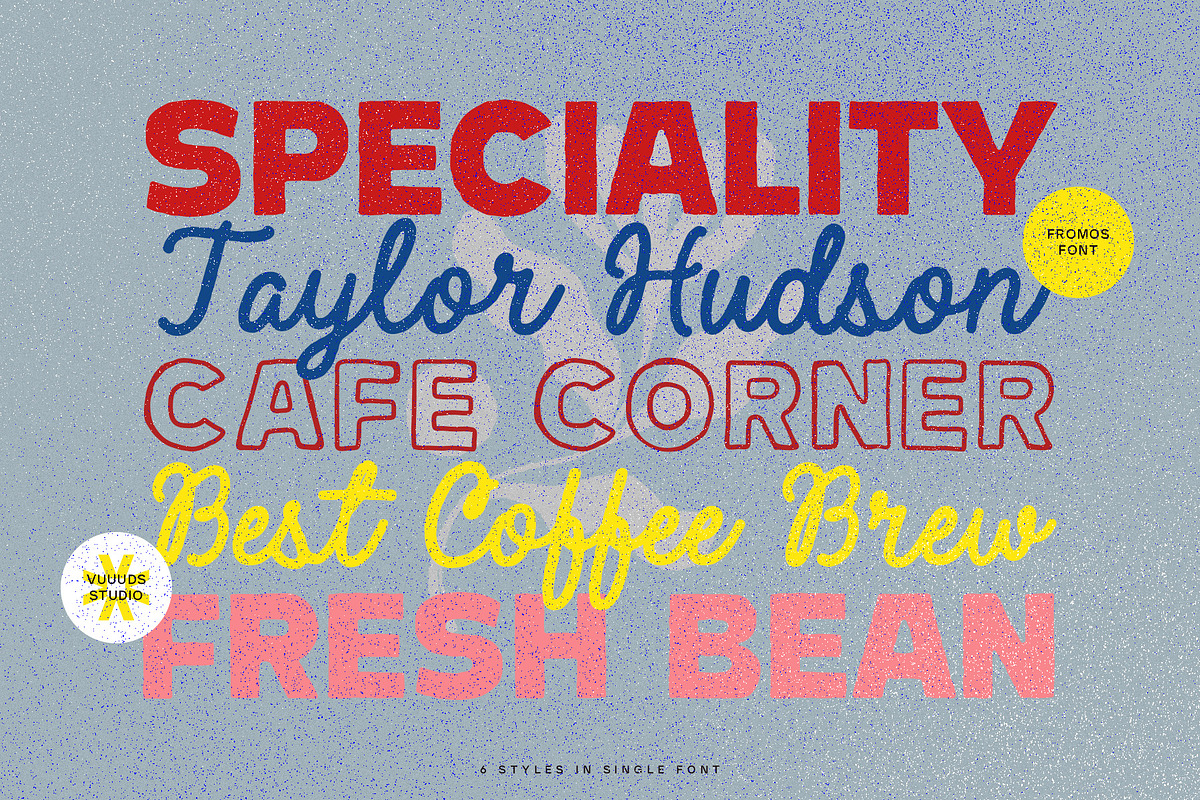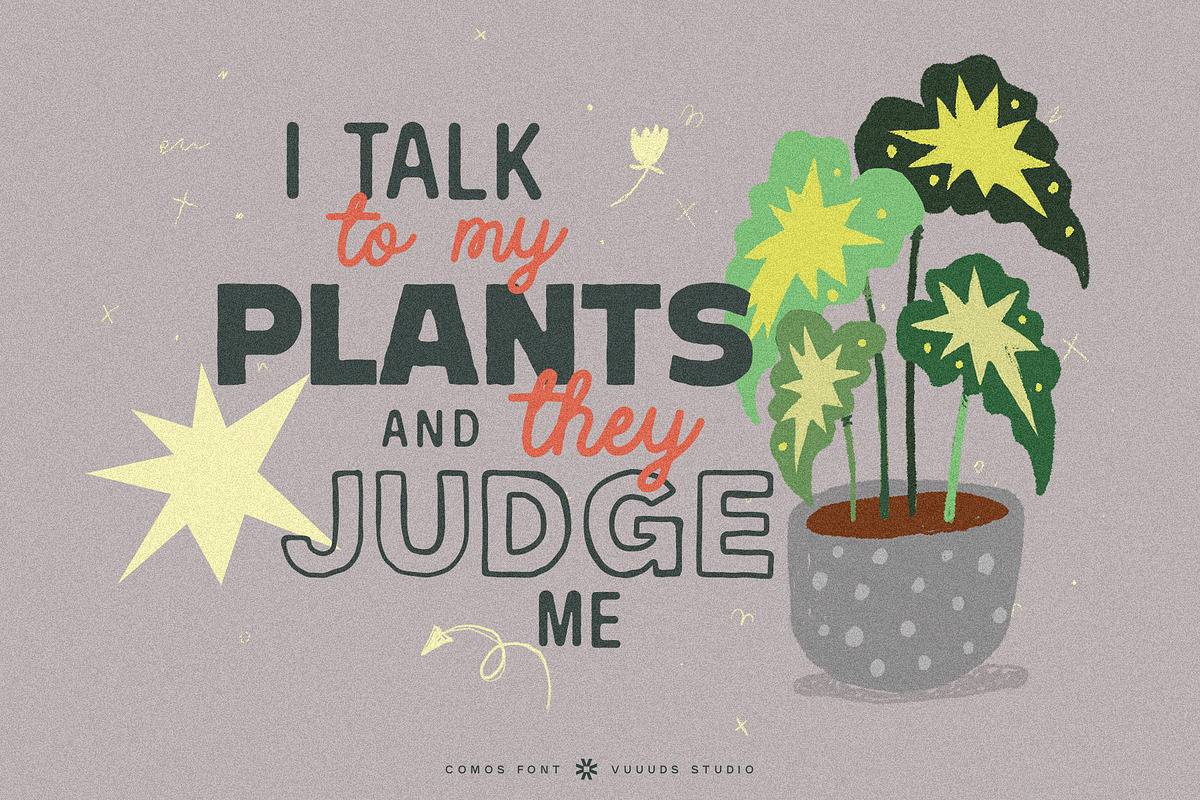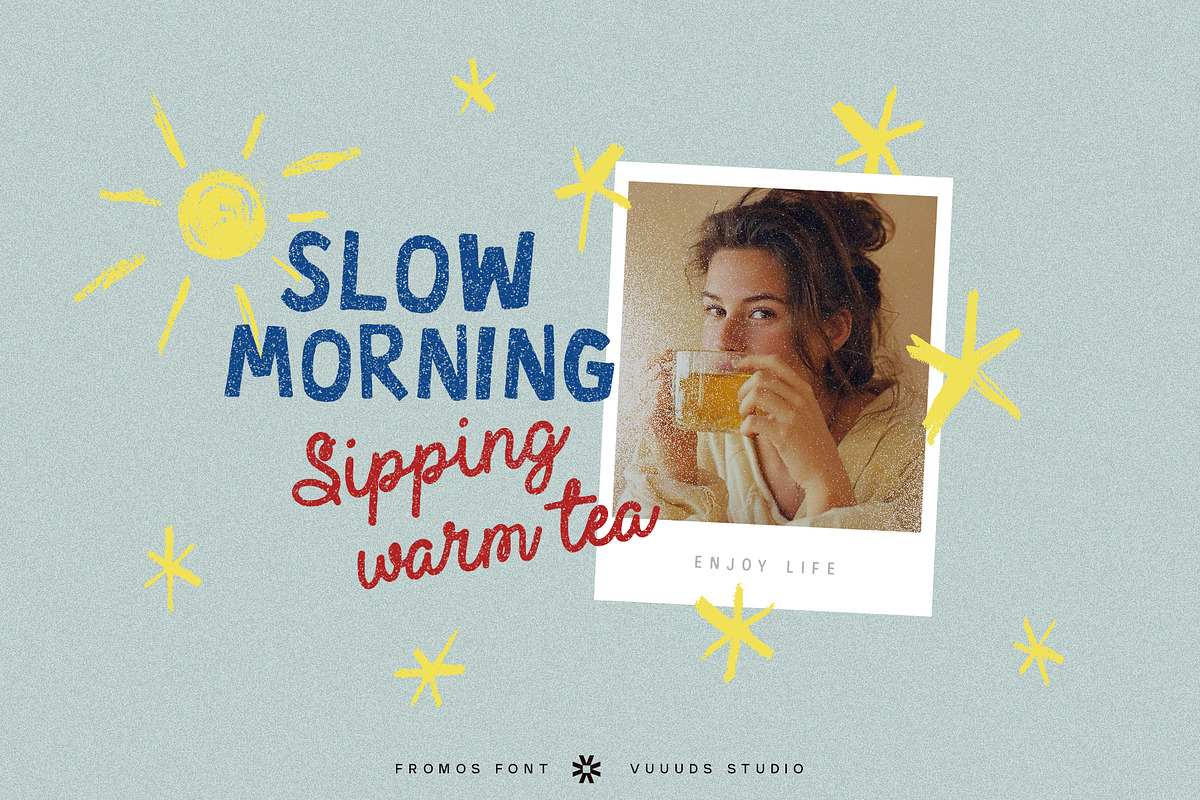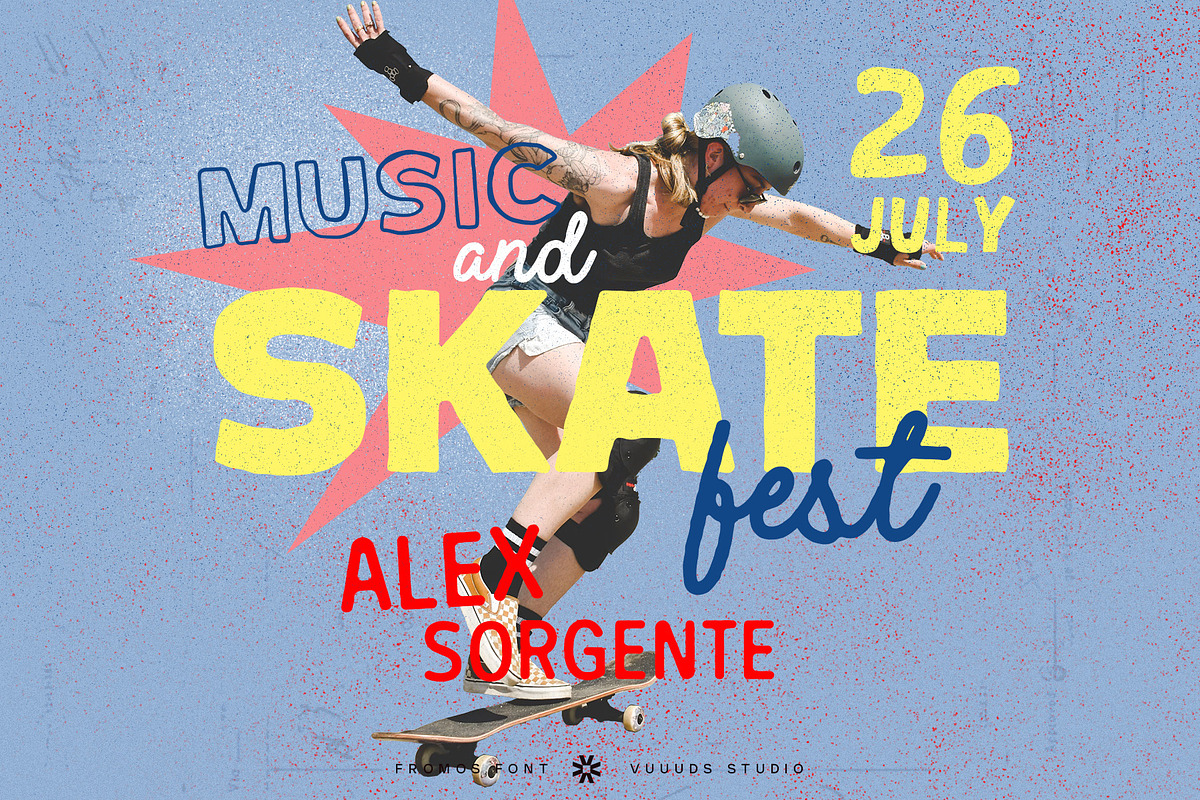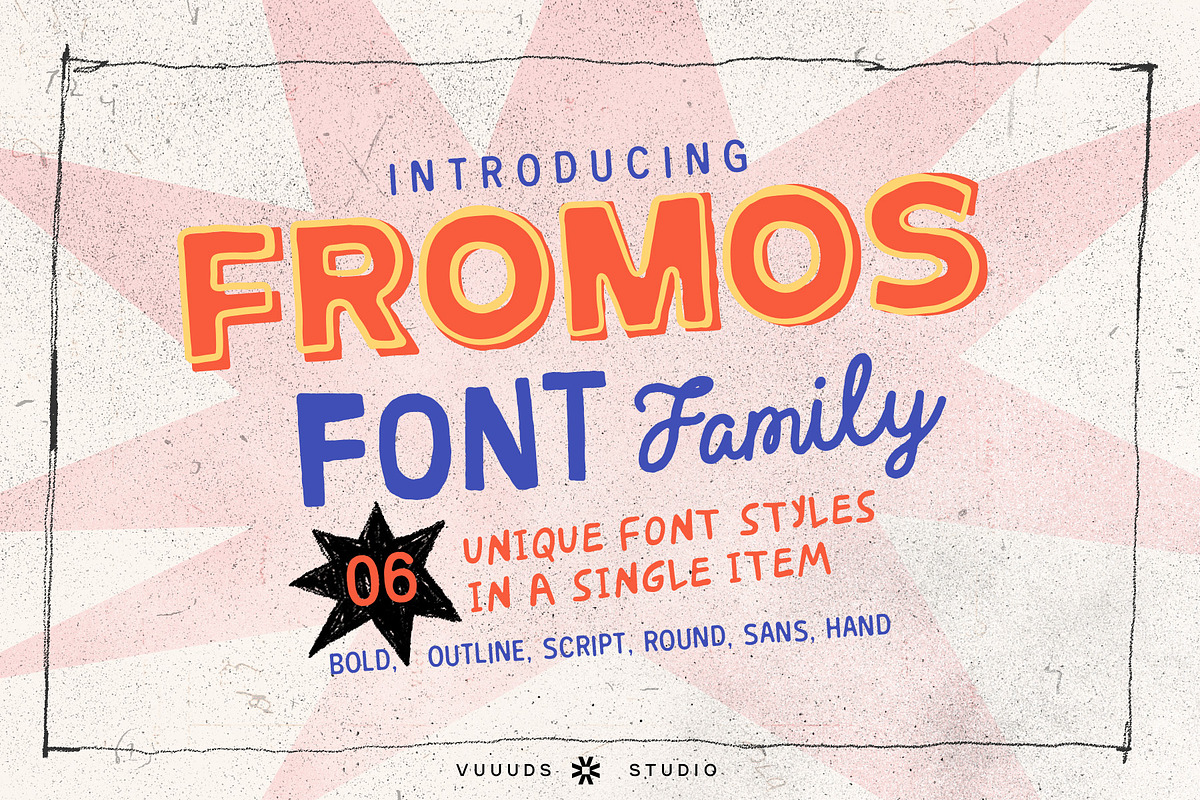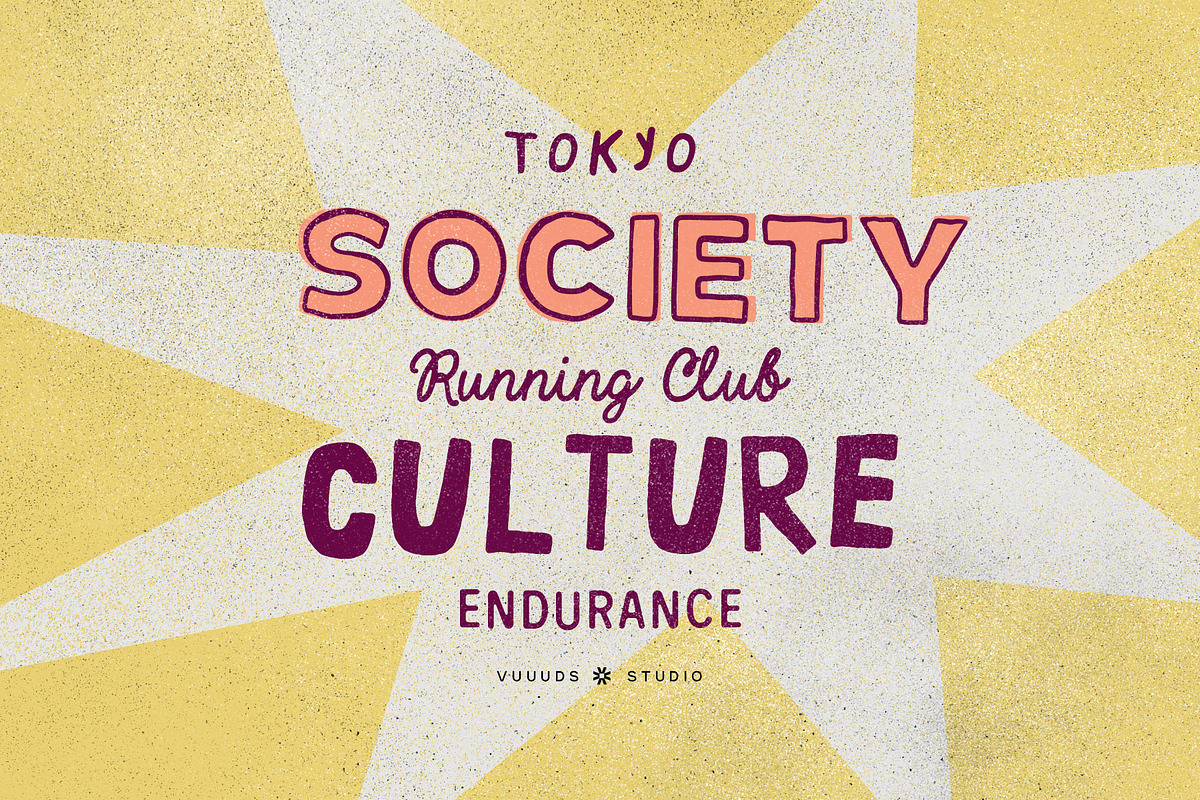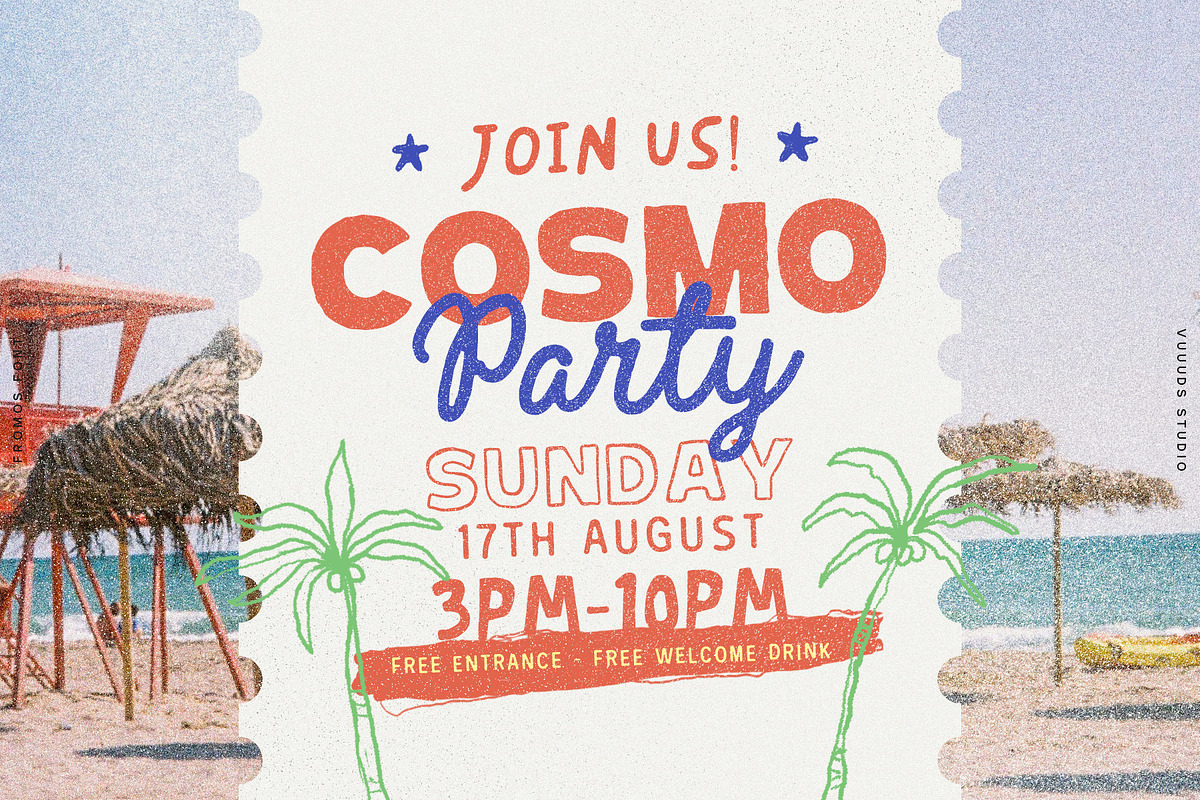
Fromos
One font is never enough—and that’s exactly why Fromos was born.
Fromos is a versatile 6-in-1 font family featuring six distinct styles: Bold, Outline, Script, Hand, Sans, and Round. Designed to be mixed and matched effortlessly, this dynamic typeface combo gives you endless creative freedom to build stunning, head-turning designs in minutes.
Vibrant, youthful, and energetic, Fromos is the ultimate font toolkit for high-impact posters, event & party branding, bold titles, social media templates, and Canva designs. If you’re looking for a fresh, young, and cool aesthetic, Fromos is all you need to make your work stand out!